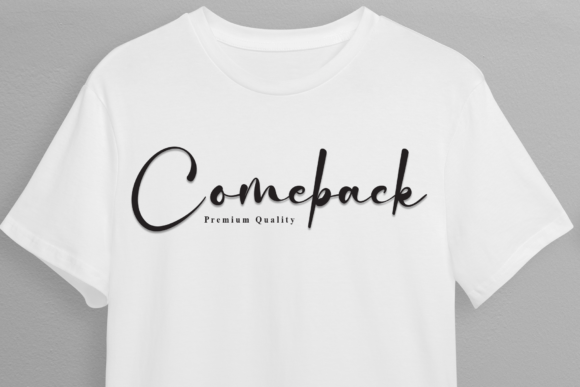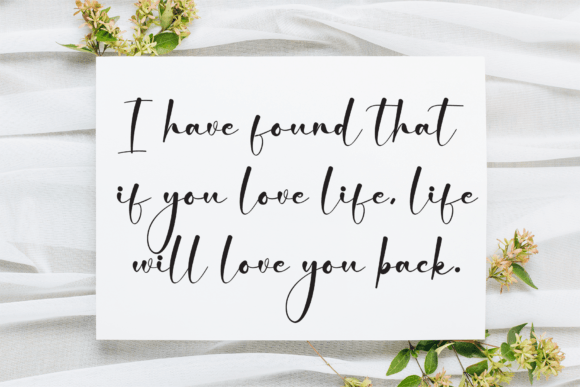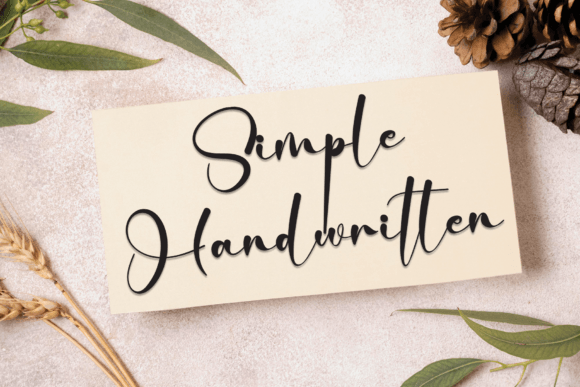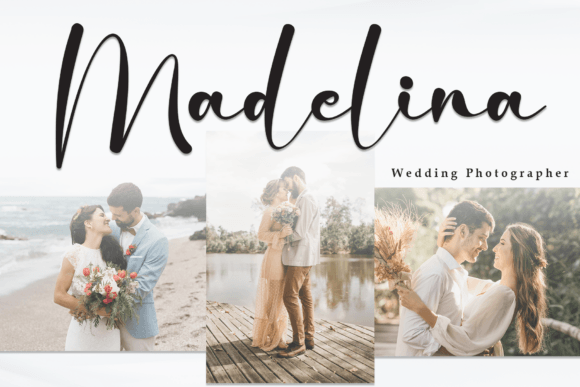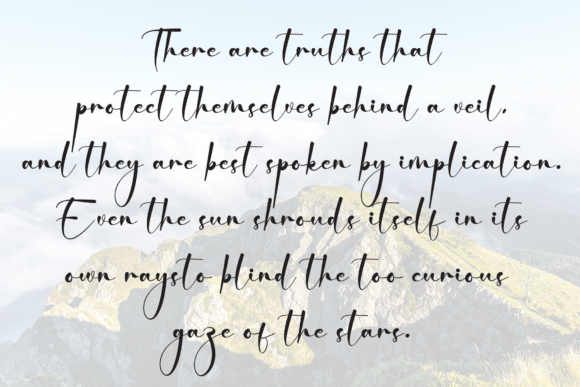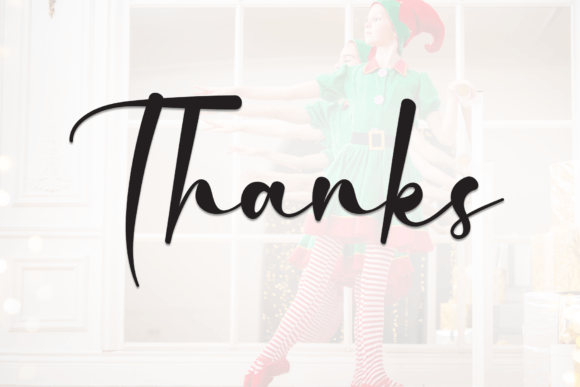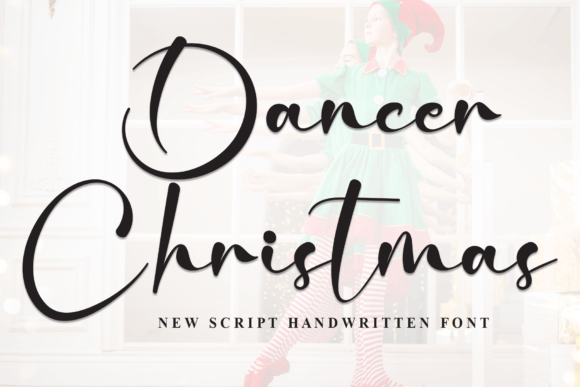
Dancer Christmas Font: Elevate Your Designs with Elegance and Style
Are you a designer or crafter looking for a font that exudes elegance and sophistication? Look no further than the Dancer Christmas Font. This stylish and incredibly elegant script font is perfect for adding a handwritten touch to your designs. In this article, we’ll explore the features and benefits of Dancer Christmas Font and how it can elevate your designs.
What is Dancer Christmas Font?
Dancer Christmas Font is a beautiful script font that is designed to add a touch of elegance and sophistication to your designs. Its flowing lines and cursive strokes make it perfect for creating stunning wedding invitations, thank you cards, quotes, greeting cards, logos, business cards, and more.
Key Features of Dancer Christmas Font
- Elegant and Stylish: Dancer Christmas Font is an incredibly elegant and stylish script font that will add a touch of sophistication to your designs.
- Handwritten Touch: This font is designed to give your designs a handwritten touch, making them look more personal and unique.
- Versatile: Dancer Christmas Font is versatile and can be used for a variety of design projects, including wedding invitations, thank you cards, quotes, greeting cards, logos, business cards, and more.
- Easy to Read: Despite its elegant and cursive nature, Dancer Christmas Font is easy to read, making it perfect for body text and headings.
Benefits of Using Dancer Christmas Font
Using Dancer Christmas Font in your designs can have numerous benefits. Here are a few:
- Stand Out from the Crowd: With Dancer Christmas Font, you can create designs that stand out from the crowd and leave a lasting impression on your audience.
- Add a Personal Touch: This font adds a personal touch to your designs, making them look more unique and special.
- Enhance Your Brand: Dancer Christmas Font can help enhance your brand’s image and reputation by giving your designs a professional and elegant look.
- Save Time: With Dancer Christmas Font, you can create stunning designs in no time, saving you time and effort.
Design Ideas Using Dancer Christmas Font
Here are some design ideas that you can create using Dancer Christmas Font:
- Wedding Invitations: Create stunning wedding invitations that set the tone for the big day.
- Thank You Cards: Design beautiful thank you cards that express your gratitude and appreciation.
- Quotes and Posters: Create inspiring quotes and posters that motivate and uplift your audience.
- Greeting Cards: Design elegant greeting cards for special occasions such as Christmas, New Year, and more.
- Logos and Branding: Use Dancer Christmas Font to create elegant logos and branding materials that reflect your brand’s personality.
Tips for Using Dancer Christmas Font
Here are some tips for using Dancer Christmas Font effectively:
- Use it Sparingly: Use Dancer Christmas Font sparingly to avoid overwhelming your design.
- Pair it with Other Fonts: Pair Dancer Christmas Font with other fonts to create a unique and interesting contrast.
- Pay Attention to Kerning: Pay attention to kerning to ensure that your text looks elegant and refined.
In conclusion, Dancer Christmas Font is a stylish and incredibly elegant script font that can elevate your designs and add a touch of sophistication. Its versatility, elegance, and ease of use make it perfect for designers and crafters who want to create stunning designs. With its numerous benefits and design possibilities, Dancer Christmas Font is a must-have font for any designer or crafter looking to take their designs to the next level.